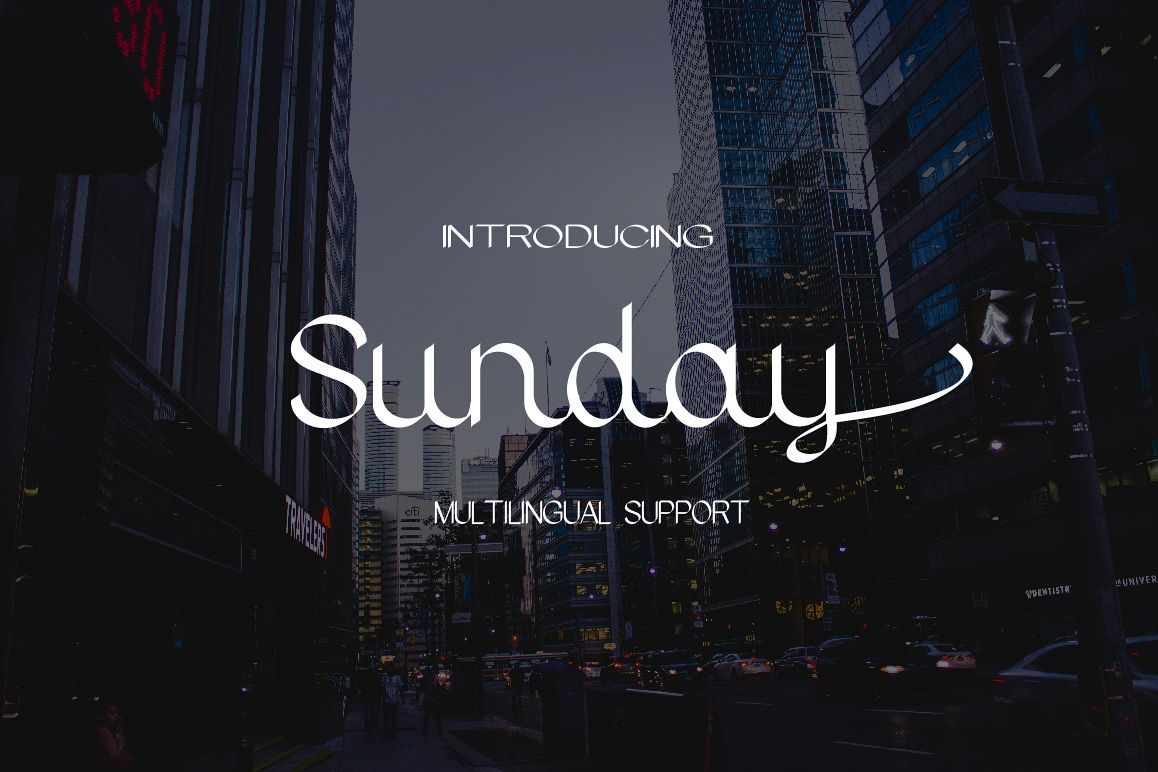
Sunday
Sunday is a beautiful and elegant handwritten font with an amazing feel. It will add a layer of sophistication to any design idea!.
This font good for wedding, signature, words, lettering, food, building, marketing, brand, etc.